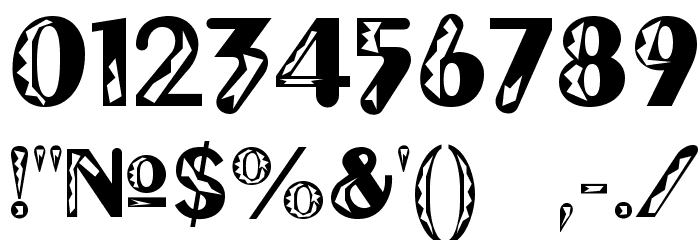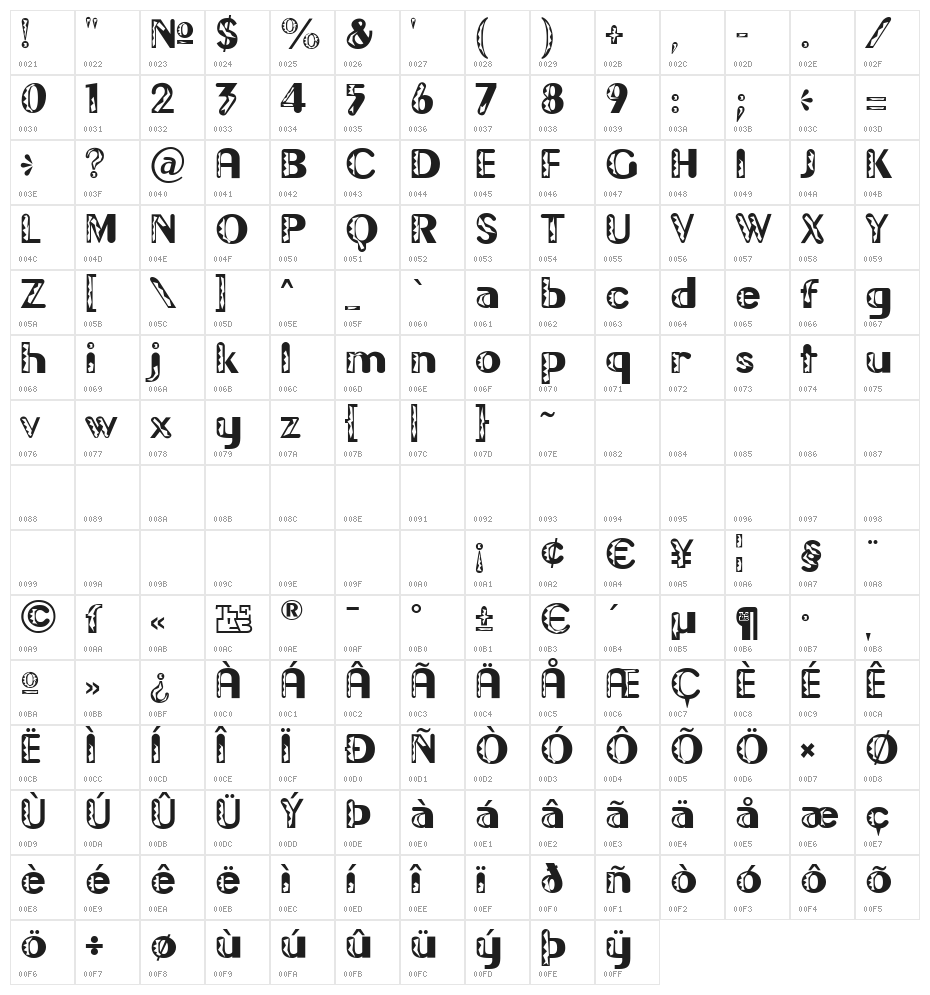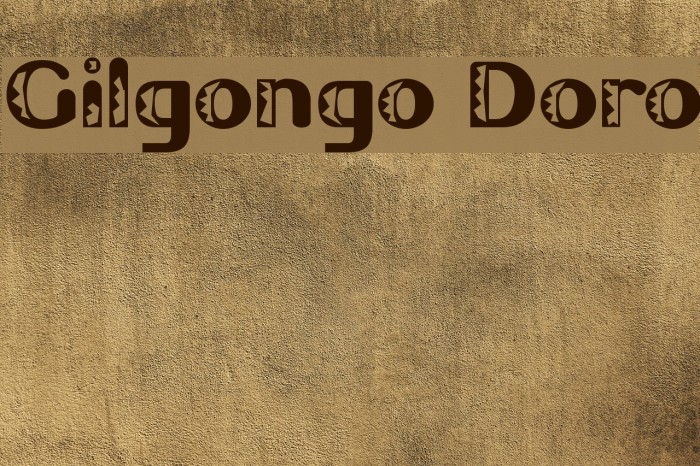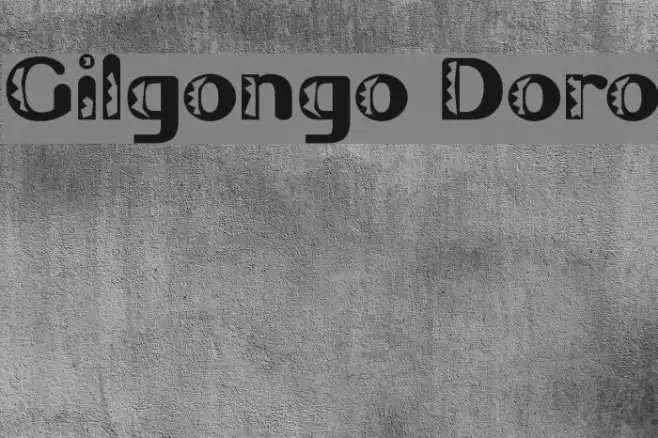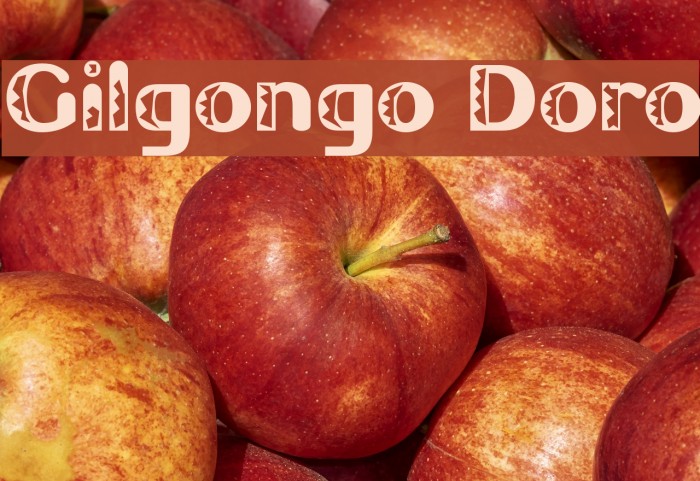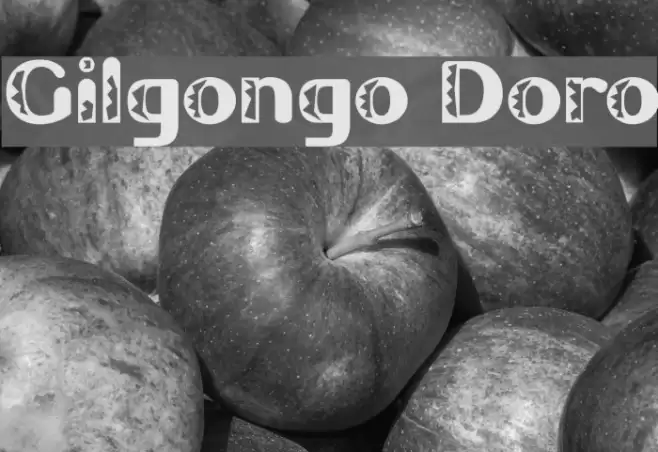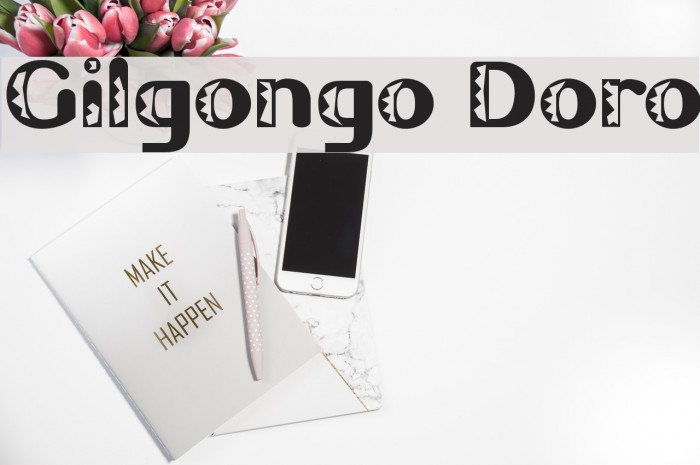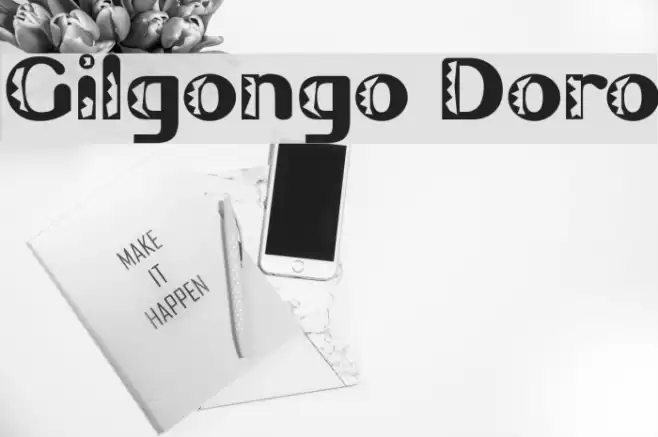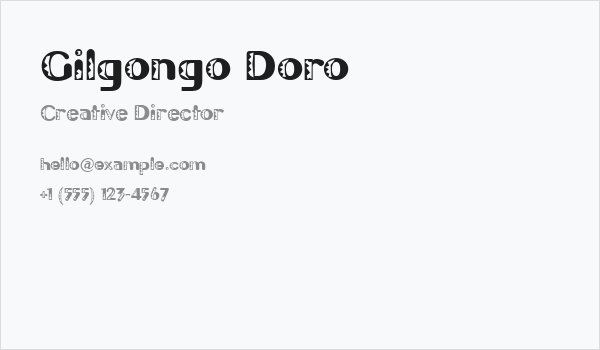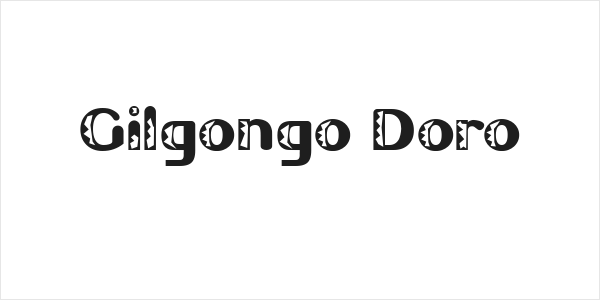
Gilgongo Doro Font
Gilgongo Doro Description
This font features a bold and decorative style with a unique pattern embedded within each character. The uppercase letters are distinct with a tribal-like design that adds a sense of movement and energy. The lowercase letters maintain this decorative theme, offering a cohesive look across all text. Numbers and special characters are equally stylized, ensuring consistency throughout. The font's boldness and intricate design make it stand out, ideal for projects that require a strong visual impact. The character spacing is normal, allowing for readability despite the complex patterns. This font is perfect for creative projects that aim to capture attention and convey a sense of uniqueness.
| Proposed Projects | Ideal for posters, branding, album covers, and any creative project needing a bold statement. |